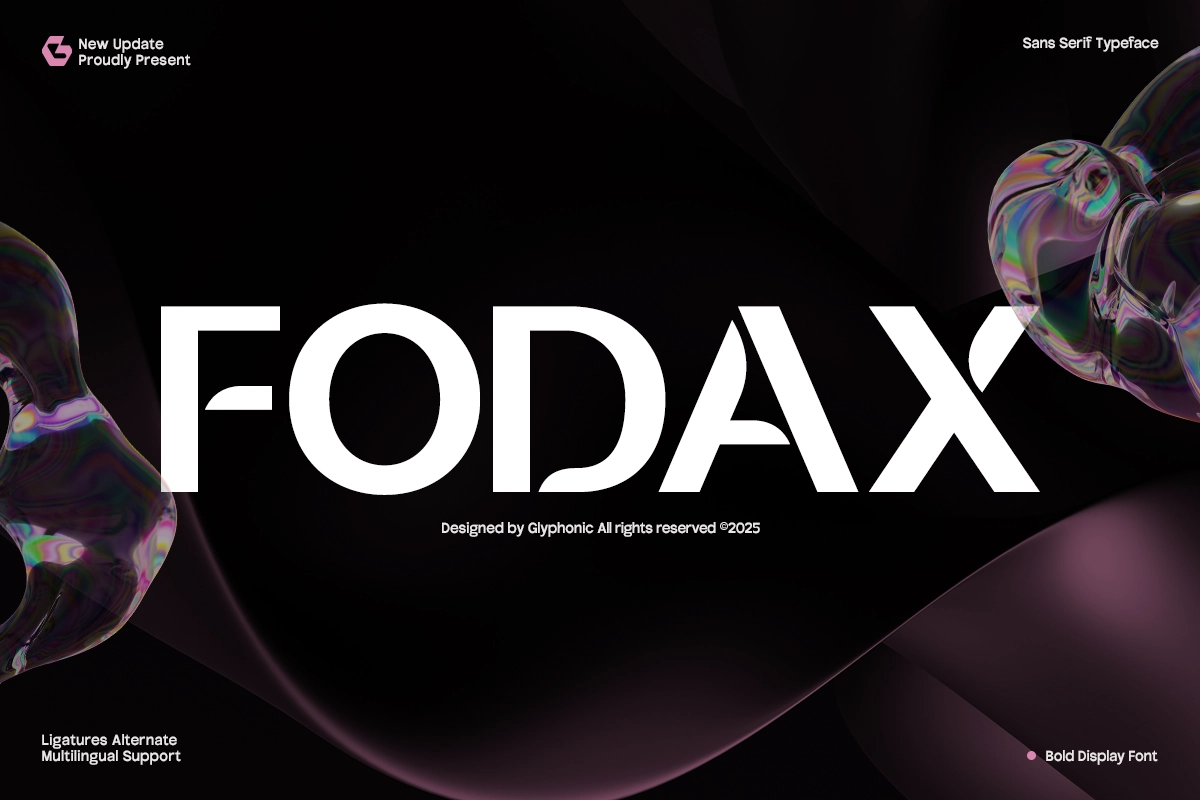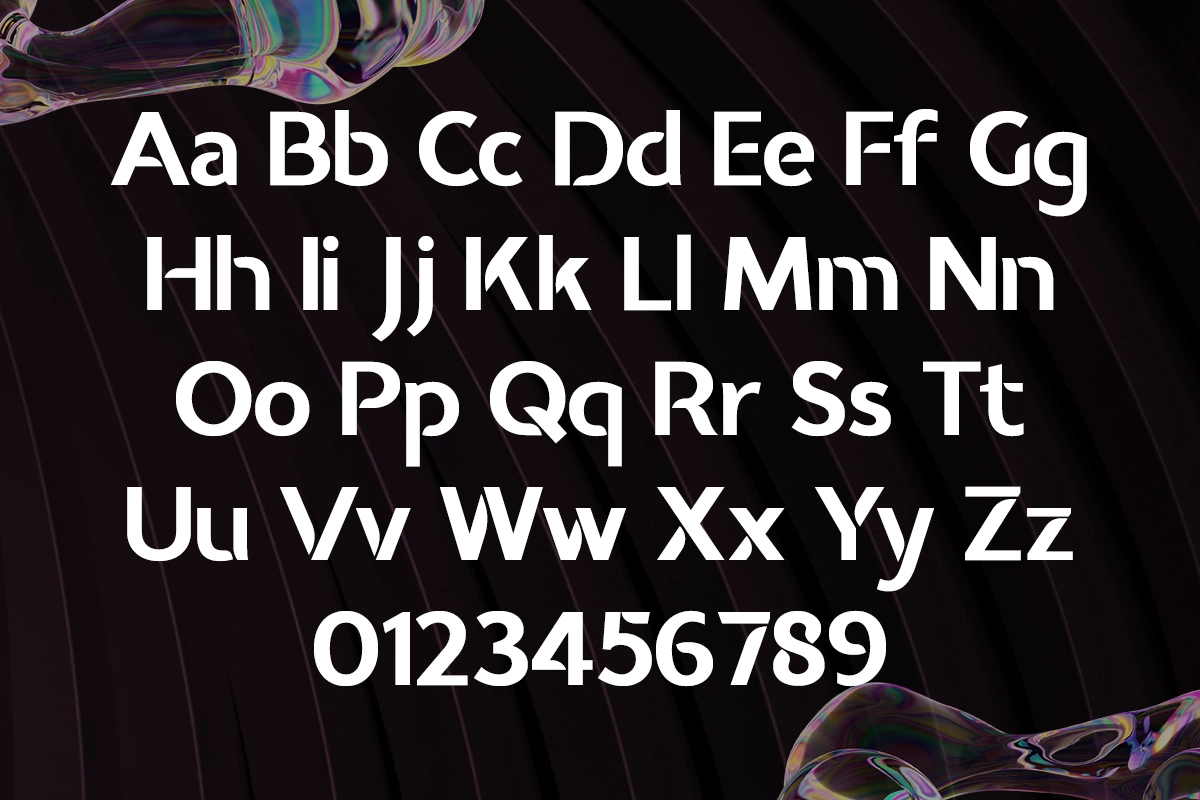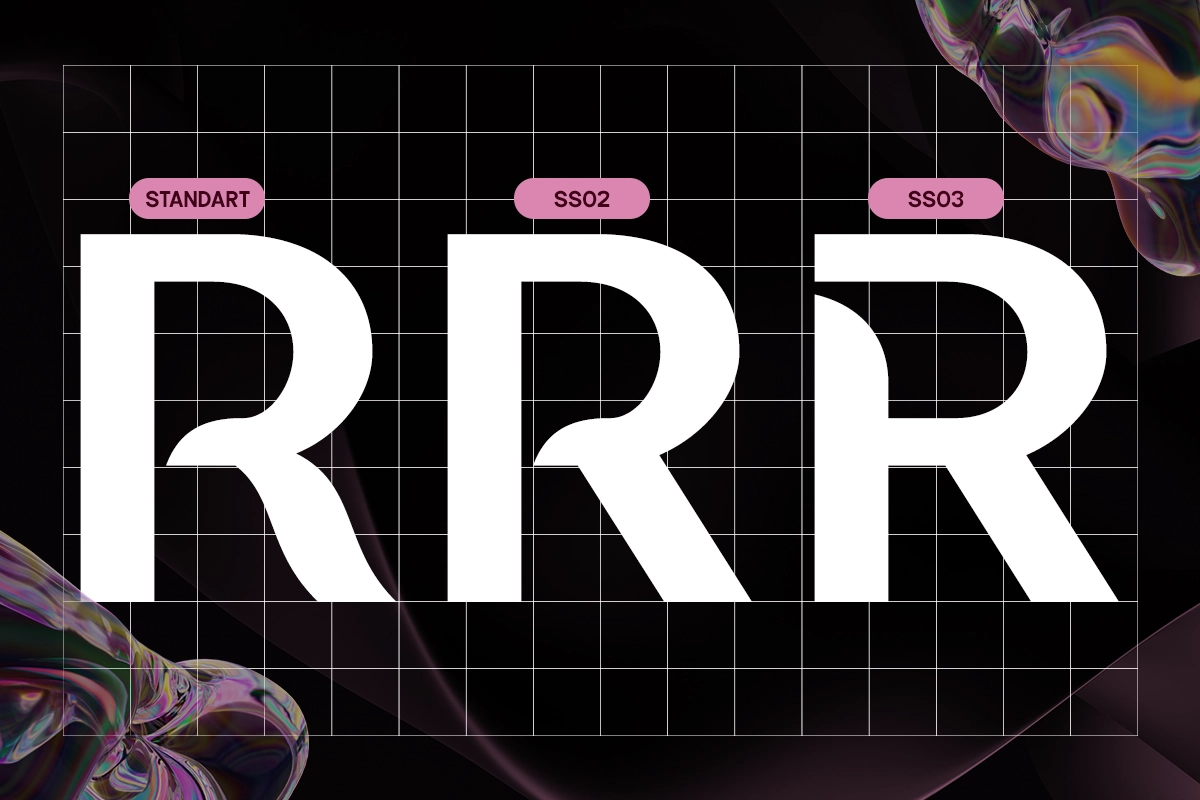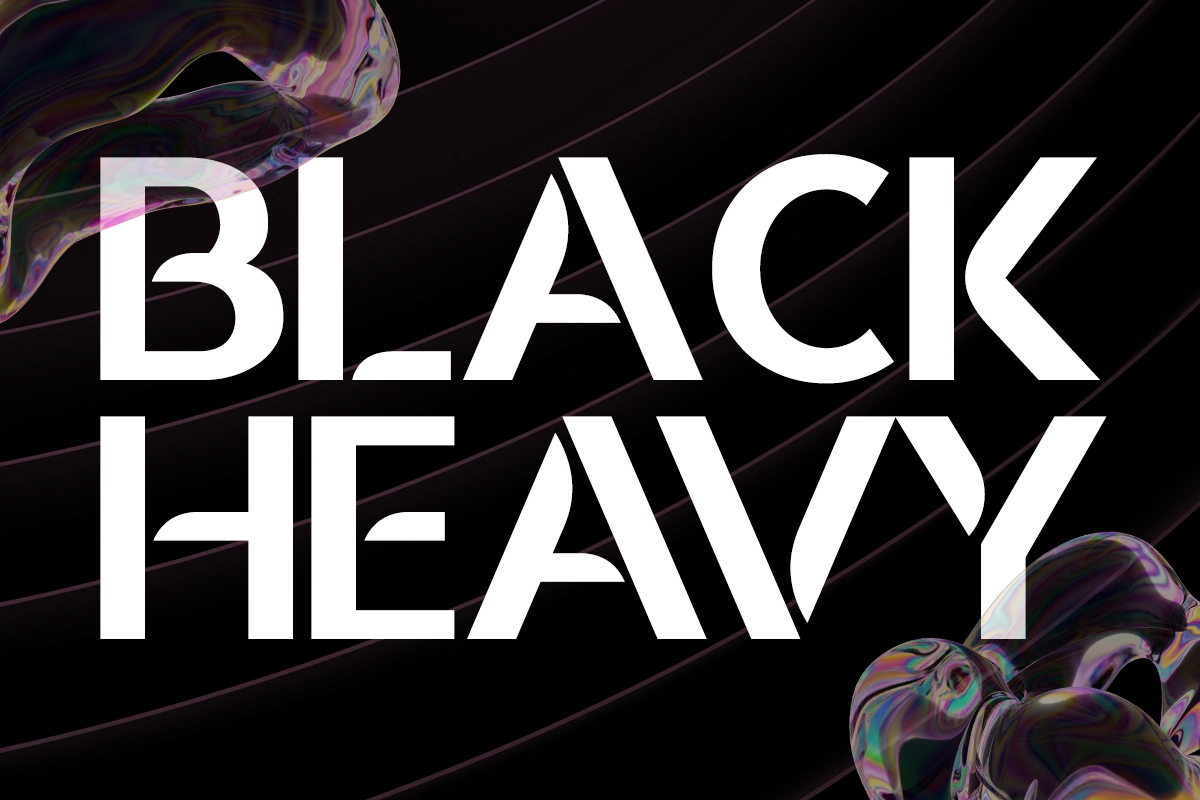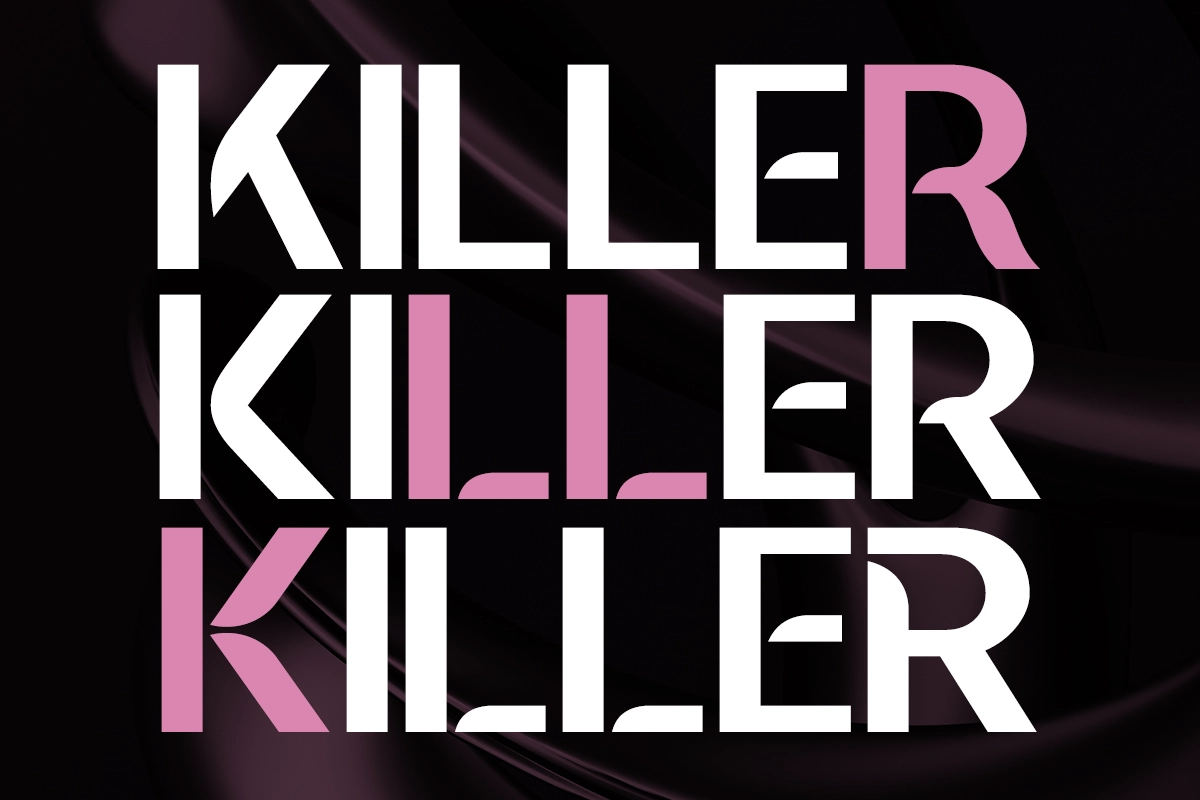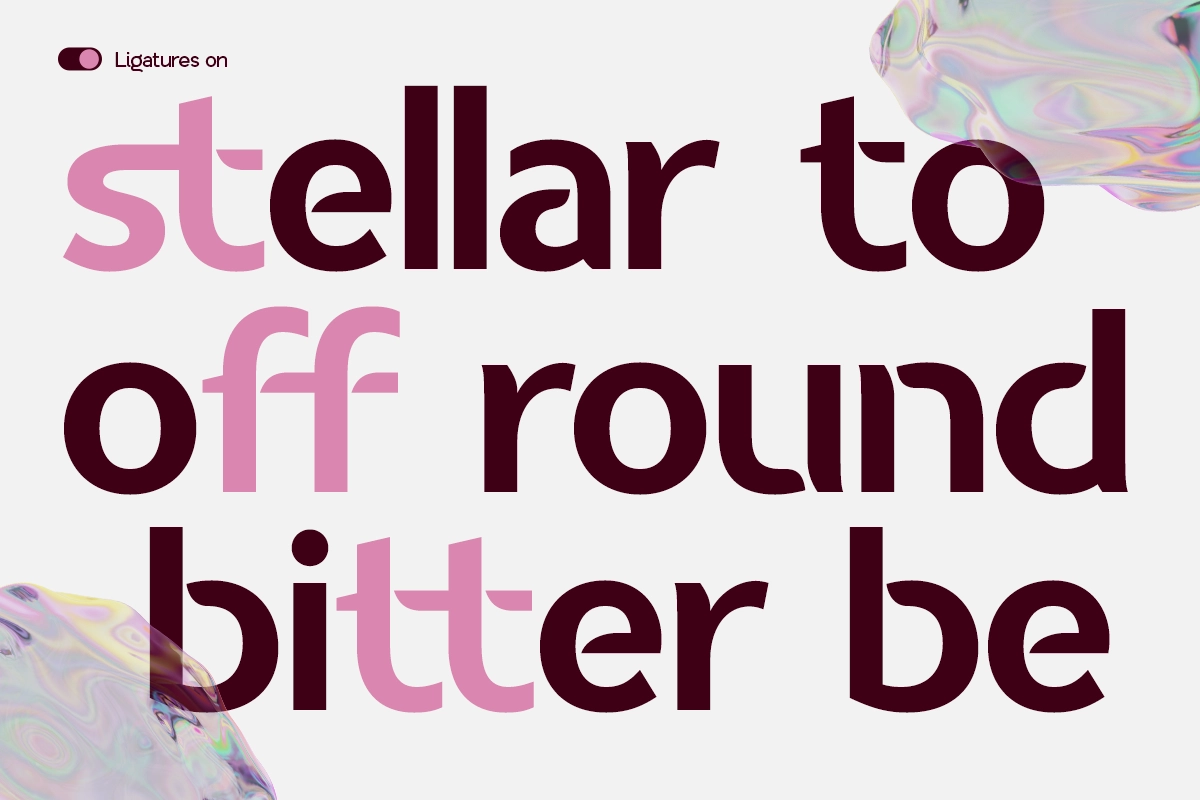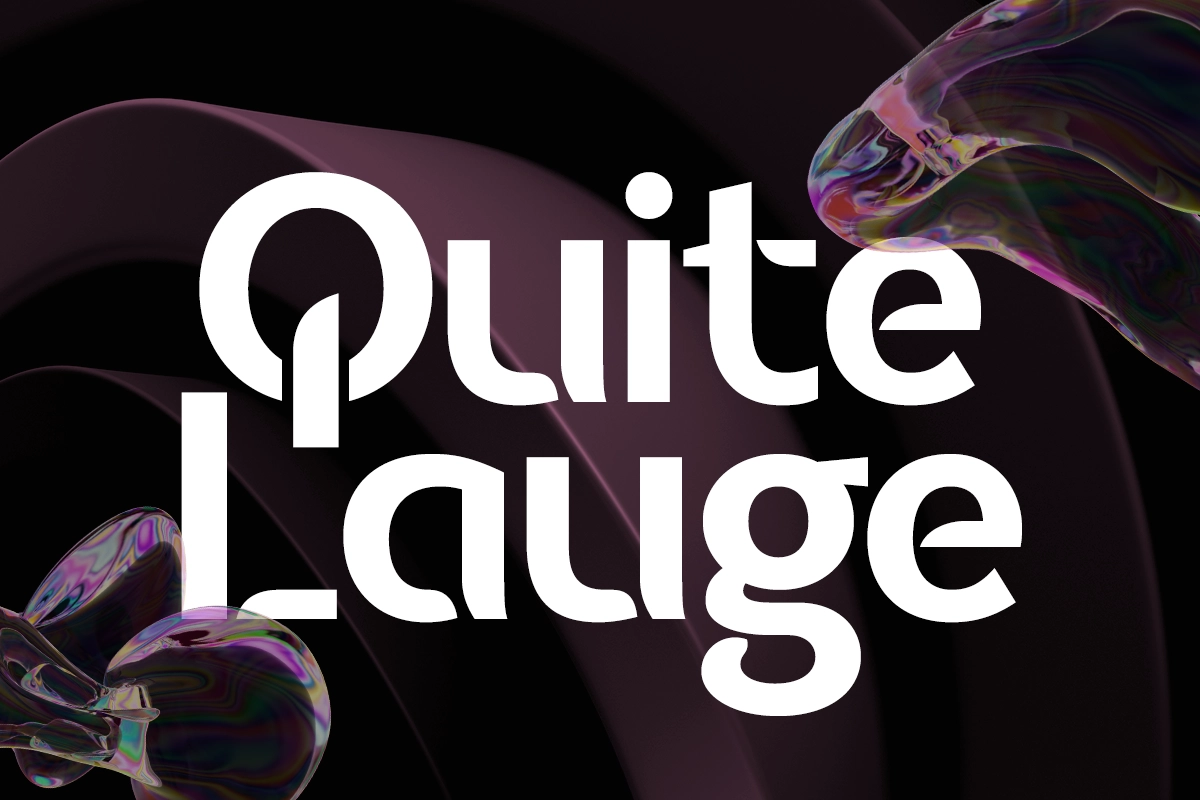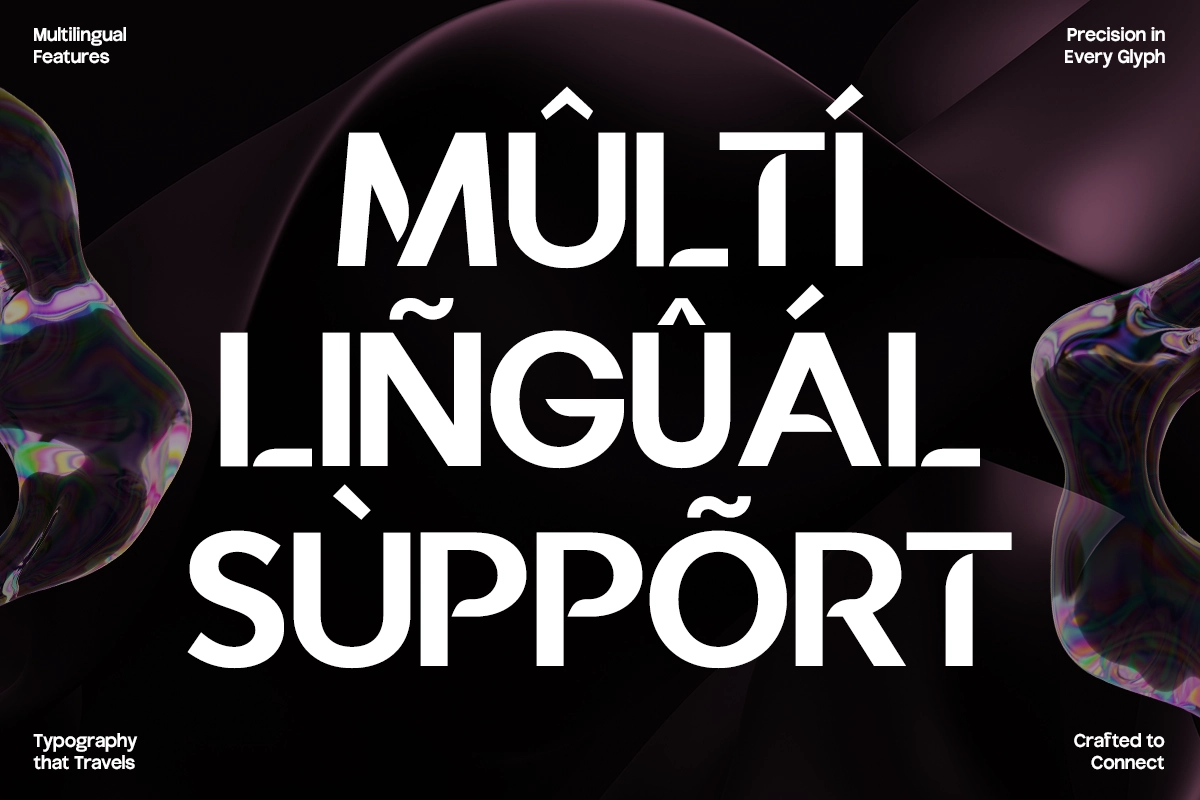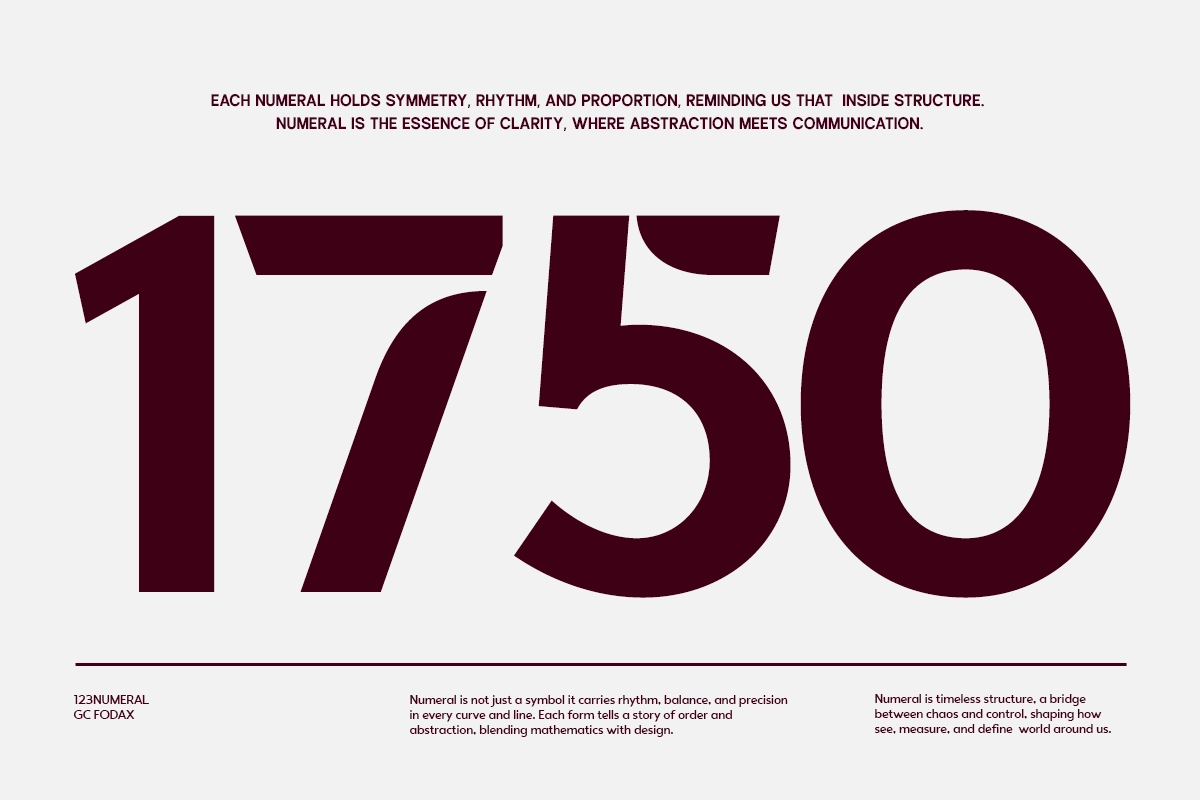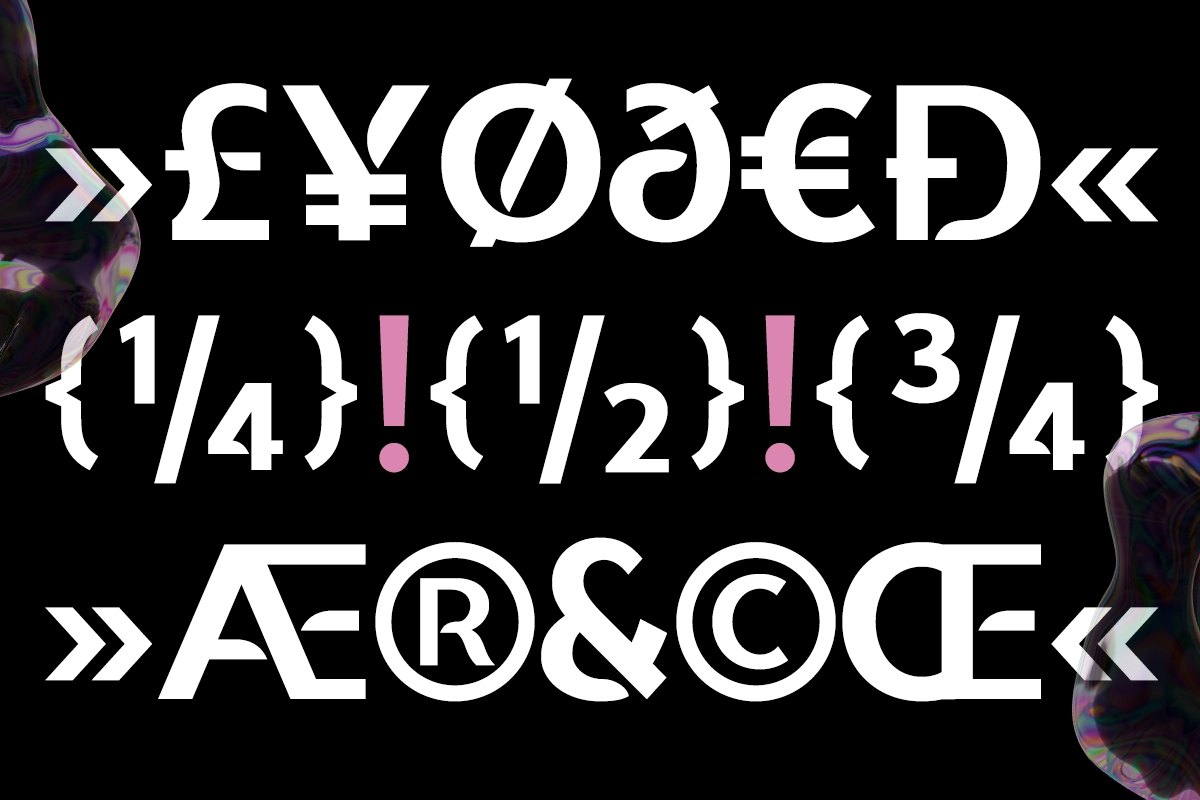
GC Fodax — Bold Simplicity Font
GC Fodax is a bold sans serif typeface designed to deliver clarity, strength, and modern impact. With clean geometric forms and assertive strokes, it brings a confident voice to both digital and print applications. Crafted to embody simplicity without sacrificing personality, GC Fodax is ideal for branding, editorial layouts, tech-forward designs, and striking visual identities.
Its balanced proportions and refined detailing make it versatile yet distinctive—whether you're creating sleek interfaces, commanding headlines, or minimalist posters, GC Fodax adds power, precision, and elegance to your typography.
• Numbers & Punctuation
• Modern Geometric Construction
• Multilingual Support (170+ Languages)